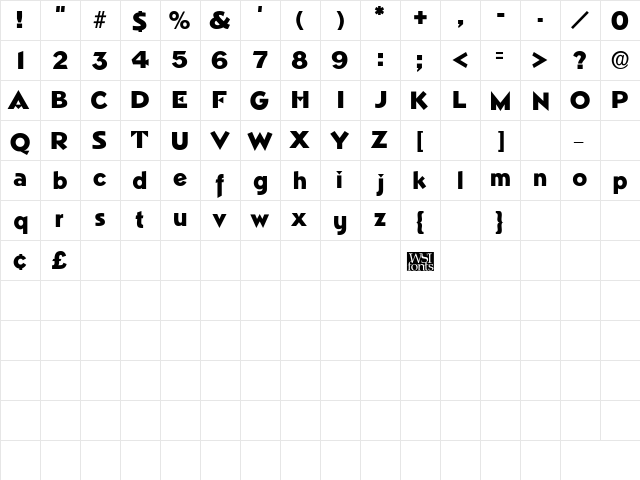
Trimble Regular
Design Context for Trimble Typeface
Trimble is a composed and adaptable typeface that performs quietly and consistently across a wide range of design contexts.